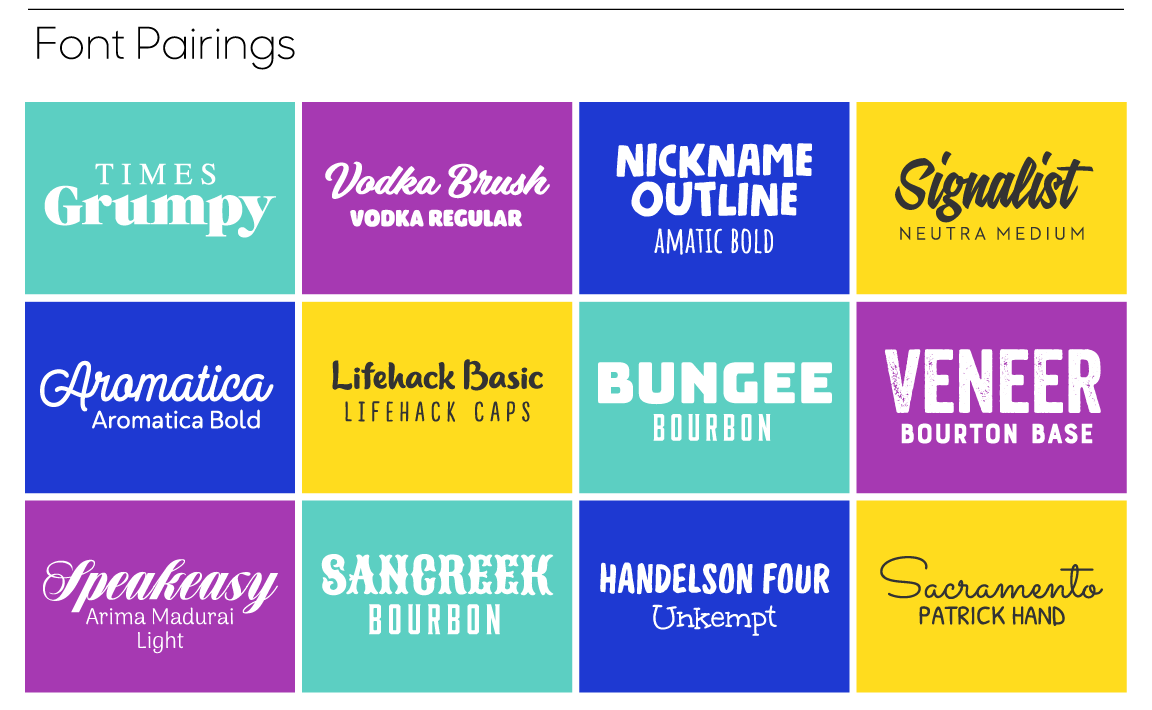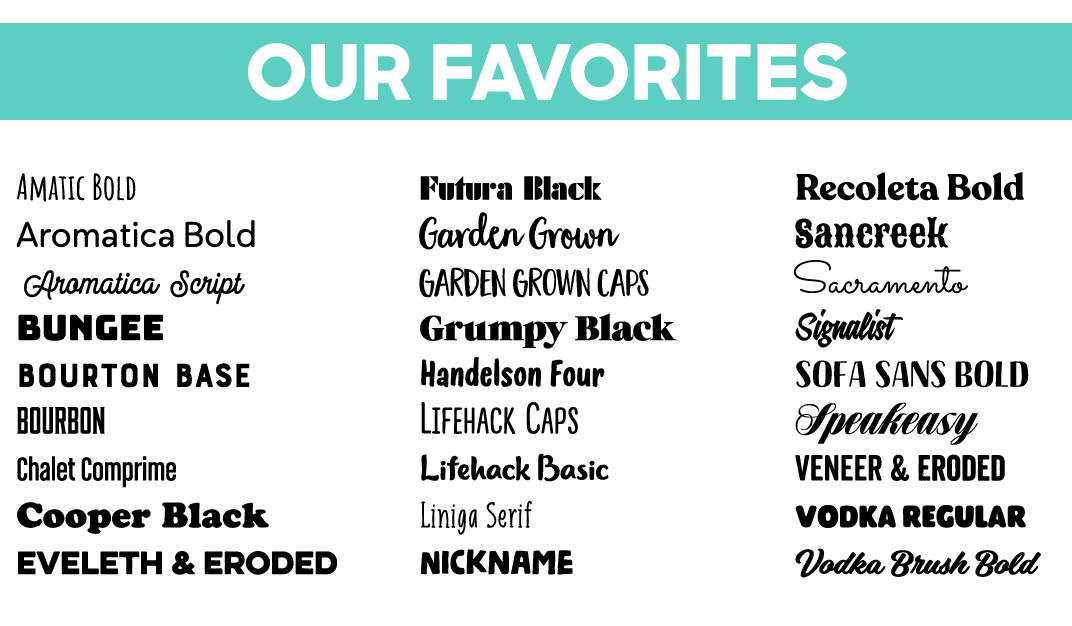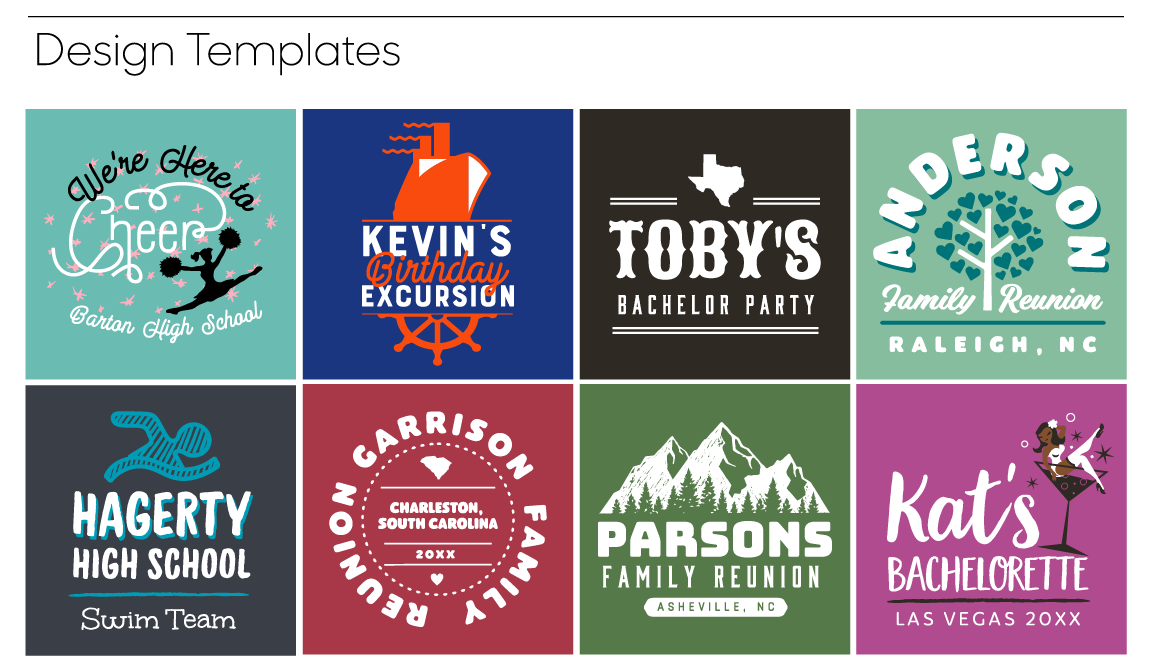
Custom Ink’s Favorite T-shirt Fonts
There are a few elements that go into creating a custom t-shirt, like picking colors, graphics, or sayings to go on your one-of-a-kind piece. For getting your message across, picking the right font can be a game-changer. With so many to pick from, how do you choose? We’re here to help you make the task less daunting.
To help you get started, below are some of our favorite fonts for custom t-shirts, carefully selected by our Design Resources Team. Our experts curate our art library, fonts, and design ideas to ensure customers have the very best design experience.
Font Categories
Let’s start with a quick primer on fonts. There are two main font styles: serif and sans serif.- A serif font has short lines at the ends of the letters, making it look less blocky. One of the most popular serif fonts that you might know is Times.
- Sans serif fonts are just that–a font “sans” or without serif. A common sans serif font is Arial.
Best Fonts for Custom T-shirts
Using the right font or fonts on your gear can really elevate your final look. Fonts can give your company or team name the right amount of flair to make it jump off of the tee, or using subtle fonts can make your graphic really shine. No matter what you’re looking for, be it shirts, hoodies, hats, or more, we’ve narrowed down our favorite fonts to use on custom apparel. The graphic below features some of our favorite font picks.
Our 27 Favorite Fonts for Custom T-shirts
- Amatic Bold
- Aromatica Bold
- Aromatica Script
- Bungee
- Bourton Base
- Bourbon
- Chalet Comprime
- Cooper Black
- Eveleth & Eveleth Eroded
- Futura Black
- Garden Grown
- Garden Grown Caps
- Grumpy Black
- Handelson Four
- Lifehack Caps
- Lifehack Basic
- Liniga Serif
- Nickname
- Recoleta Bold
- Sancreek
- Sacramento
- Signalist
- Sofa Sans Bold
- Speakeasy
- Veneer & Veneer Eroded
- Vodka Regular
- Vodka Brush Bold
Anyone Can Use Fonts (Yes, Even You!)
Maybe you’re more into numbers or working with your hands than you are designing t-shirts. That’s ok! We make it easy for anyone with any skill set to use fonts on their gear. We have customers in all kinds of industries use the fonts in our lab to personalize apparel–from sporting events, to charity fundraisers, and business uniforms!Pairing Fonts
Once you find some fonts that speak to you, it’s time to pair them. Using two complementary fonts will take your design to the next level and make it look professionally made. In our graphic below, you’ll see some of our favorite fonts to pair together.
For a look that’s elegant but modern, we’d pair Vodka Brush with Vodka Regular. How perfect would these two look on t-shirts for your bar or restaurant–and they’re named appropriately, too! The Vodka Brush script will fancy up your name, while the Vodka Regular as supporting text makes your message or tagline easy to read.
For a fun and playful look, pair Handelson Four with Unkempt. This would look great on t-shirts for your paint studio, children’s store, or even your coffee shop. Handelson Four is an easy to read brushed font that’s a little bit more exciting than a traditional sans serif. It goes nicely with Unkempt’s handwritten look. And, Handelson Four’s slightly mixed baseline (the line all the letters “sit” on) gives it a playful edge.
Ok, ready to design your own custom t-shirts? We know you can create something amazing. Head to our Design Lab and check out all of our fonts, including our favorites from this post. If you’re looking for more inspiration, visit our templates that use these fonts. Which font is your favorite? Tell us in the comments below!
T-shirt Fonts FAQ
Which fonts work best on t-shirts?
Bold, simple fonts read best from a distance. Save thin or detailed fonts for short words or larger sizes.
Can I use two fonts on one shirt?
Yes. A common pairing is one bold font for the main words and a simple font for smaller text like a date or a location.
How many fonts can I choose from?
The Design Lab has a large library of fonts in every style, from block and script to retro and handwritten.